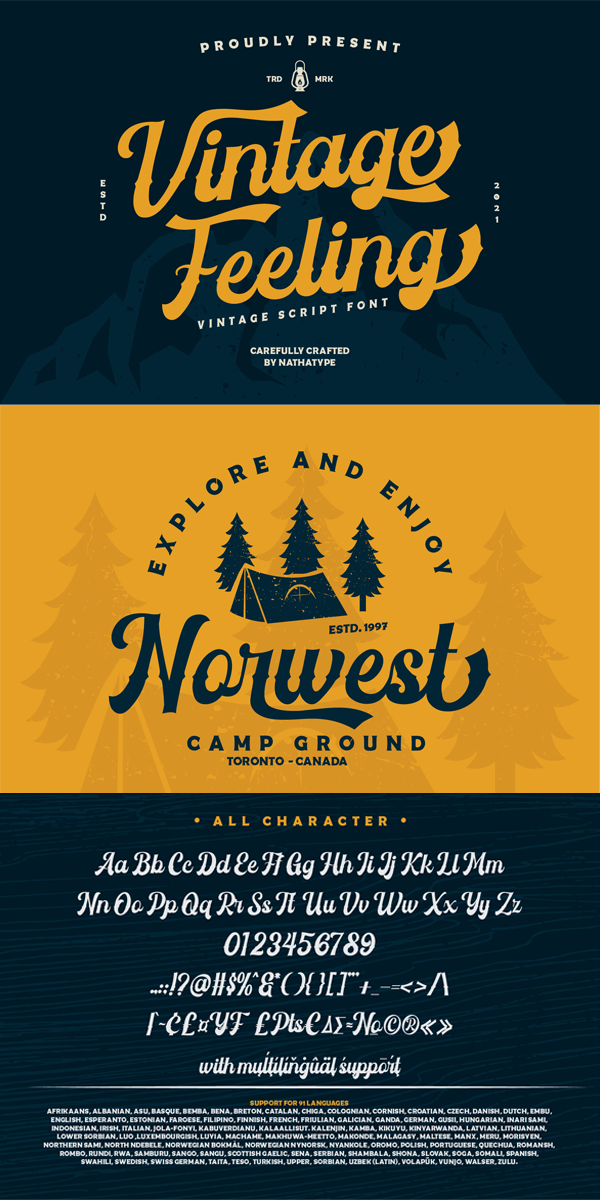
Vintage Feeling Font
About Vintage Feeling
It is a script font beautifully handcrafted to make your guests excited and to elevate your projects! Every stroke, and curve was created to entice happiness and elegance. This artistic style typeface looks very interesting for loads of different projects and promotions. A great all-in-one package for your logos, book covers, posters, t-shirts, brandings, and advertisement needs.